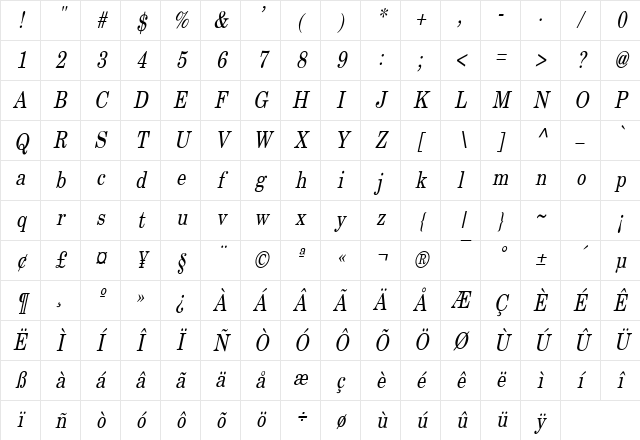
New Boston Thin Italic
New Boston Thin Family
Design Context for New Boston Thin
New Boston Thin is a composed and adaptable typeface that performs quietly and consistently across a wide range of design contexts. The slanted form adds forward momentum and visual energy. Its slender proportions lend an understated elegance to any composition.
Pro Tip: Use New Boston Thin for emphasis, pull quotes, and subheadings where its slanted energy can add rhythm to the layout.